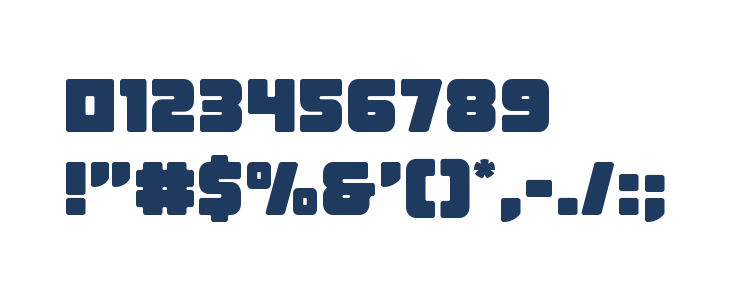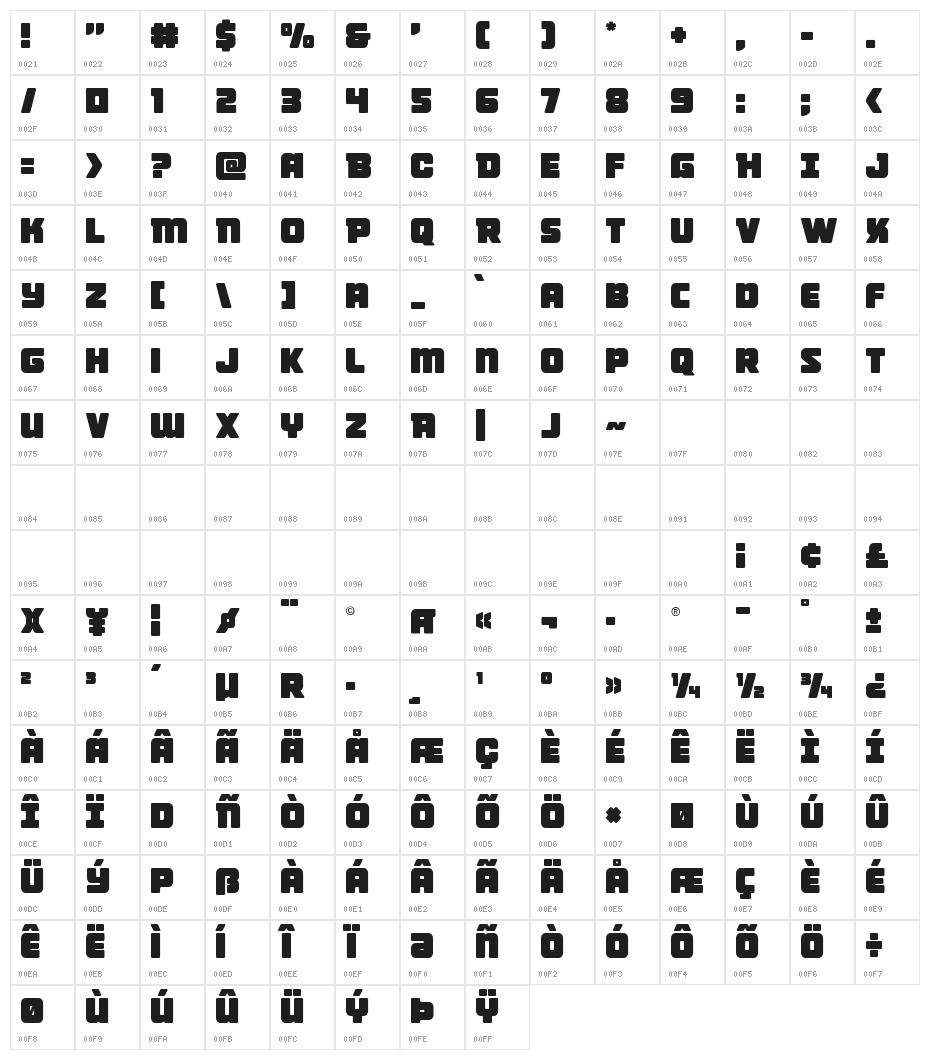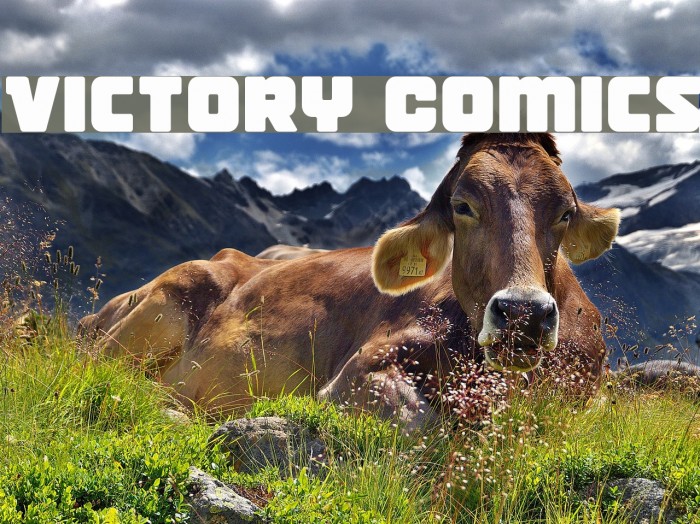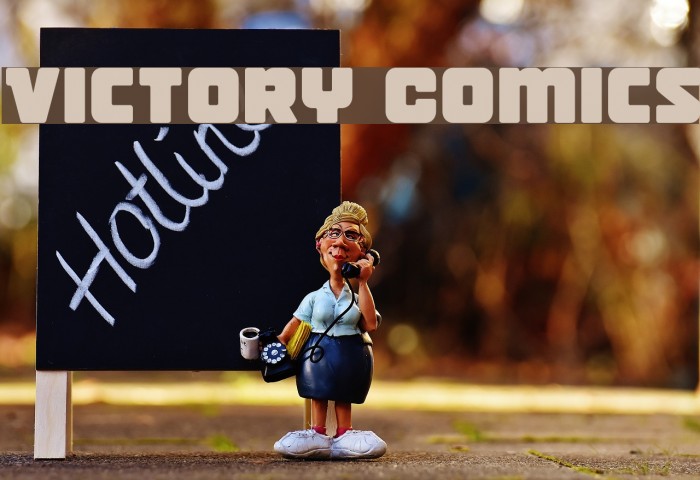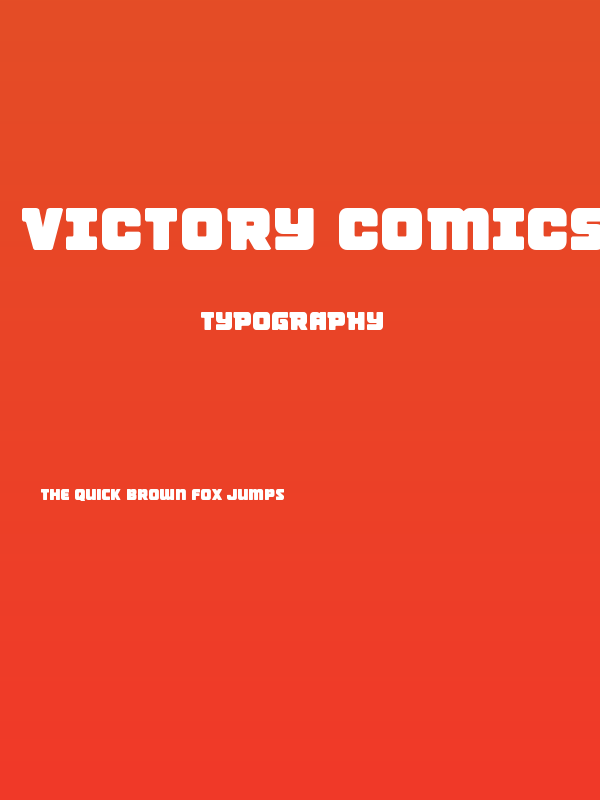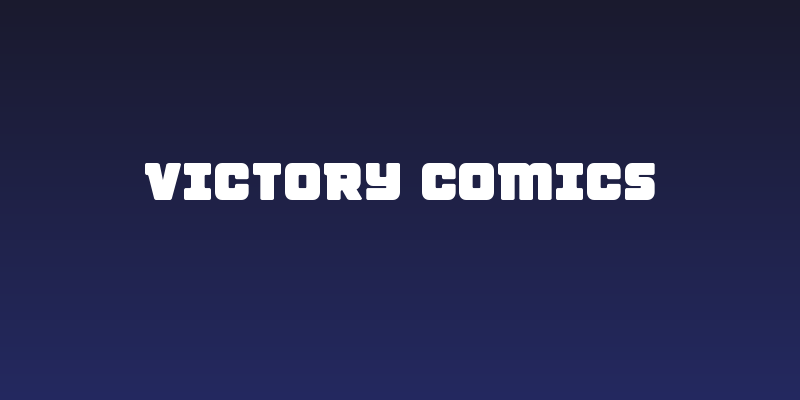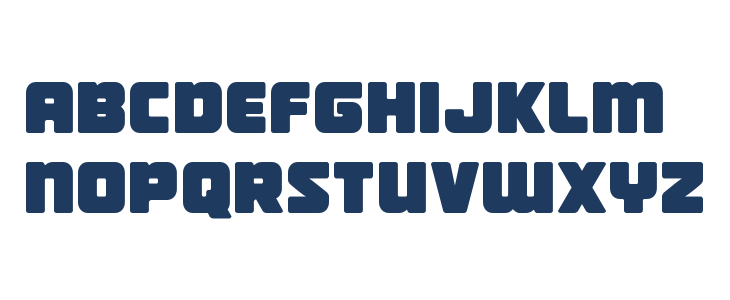
Victory Comics Font
Victory Comics Description
This font features bold, rounded characters with a strong presence, reminiscent of classic comic book styles. The letters are uniformly thick, creating a sense of stability and impact. The rounded edges soften the overall look, making it approachable and friendly. The uppercase and lowercase letters maintain a consistent style, ensuring readability and cohesion. Numbers and special characters are designed to match the boldness and rounded nature of the alphabet, providing a comprehensive and versatile typeface. This font is ideal for projects that require a playful yet assertive tone.
| Overall Style | Playful, Comic |
| Proposed Projects | Ideal for comic books, children's books, playful branding, posters, and merchandise designs. |